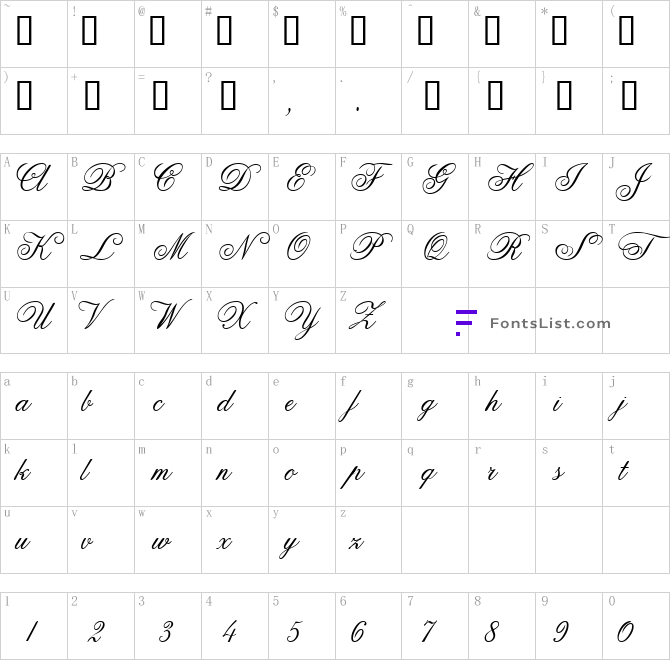
- Font Name:Anglia Script Concise
Anglia-Script-Concise.ttf is a very beautiful artistic font, Anglia-Script-Concise.ttf is widely used in the design and printing of various books and pictures,Anglia-Script-Concise.ttf has a strong visual impact,Anglia-Script-Concise.ttf is a commonly used font in newspapers, magazines and books, and is used in posters, e-commerce Poster design, store design, logo design, font design and other fields.Anglia-Script-Concise.